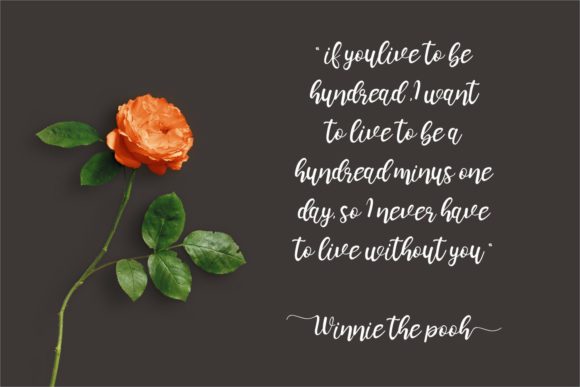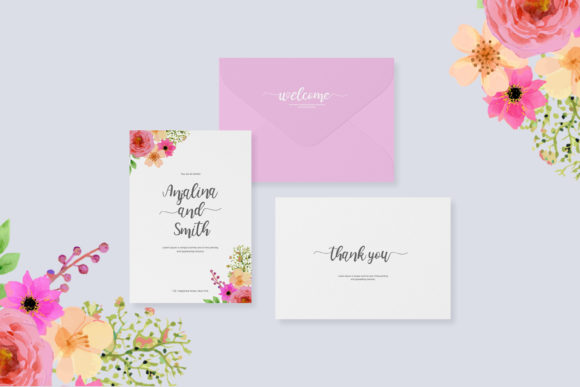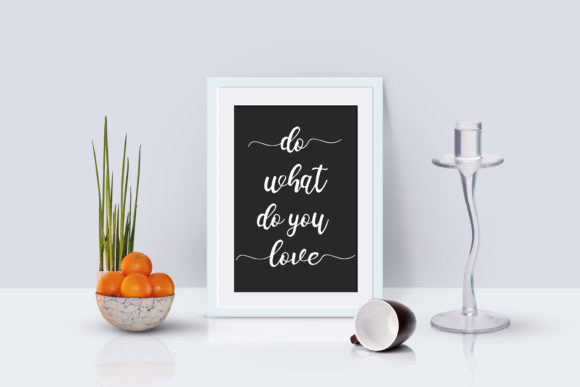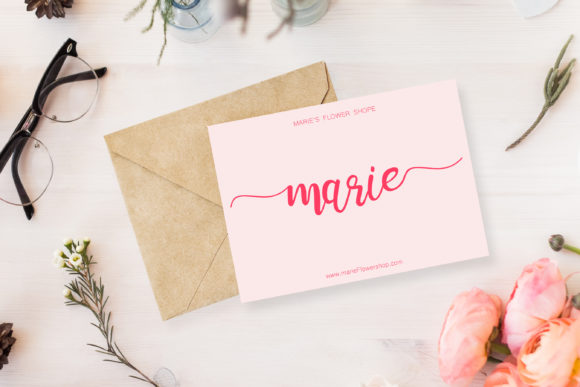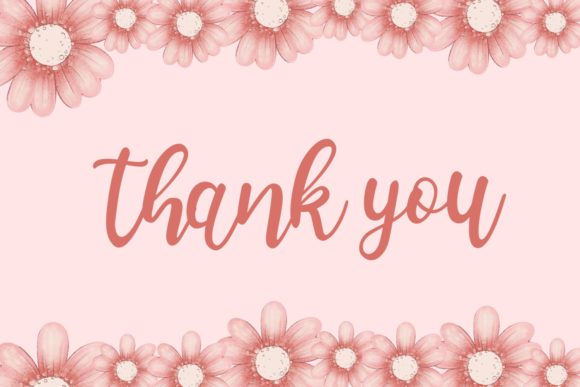
Hailyna Font: The Sweet and Soft Hand-Lettered Font for Your Creative Projects
Are you a designer or crafter looking for a font that can add a touch of sweetness and authenticity to your creative projects? Look no further than Hailyna Font! This beautiful, hand-lettered handwritten font is perfect for creating stunning wedding invitations, gorgeous stationery art, eye-catching social media posts, and cute greeting cards.
What is Hailyna Font?
Hailyna Font is a sweet, soft hand-lettered font that is designed to give your projects an authentic and personal feel. Its unique, handwritten style makes it perfect for a wide range of creative projects, from wedding invitations and stationery to social media posts and greeting cards.
Features of Hailyna Font
Hailyna Font has several features that make it a great choice for designers and crafters. Some of its key features include:
- Sweet and Soft Style: Hailyna Font has a sweet and soft style that is perfect for creating beautiful and delicate designs.
- Hand-Lettered: This font is hand-lettered, which gives it a unique and authentic feel.
- Easy to Read: Despite its delicate style, Hailyna Font is easy to read, making it perfect for use in a wide range of projects.
- Versatile: Hailyna Font can be used in a wide range of projects, from wedding invitations and stationery to social media posts and greeting cards.
Uses of Hailyna Font
Hailyna Font is a versatile font that can be used in a wide range of creative projects. Some of the most popular uses for this font include:
- Wedding Invitations: Hailyna Font is perfect for creating beautiful and elegant wedding invitations that will set the tone for your special day.
- Stationery Art: This font can be used to create gorgeous stationery art, including notecards, journals, and planners.
- Social Media Posts: Hailyna Font can be used to create eye-catching social media posts that will help you stand out from the crowd.
- Greeting Cards: This font is perfect for creating cute and personalized greeting cards for special occasions.
Why Choose Hailyna Font?
There are many reasons why you should choose Hailyna Font for your creative projects. Some of the benefits of using this font include:
- Unique and Authentic Style: Hailyna Font has a unique and authentic style that will help your projects stand out from the crowd.
- High-Quality: Hailyna Font is a high-quality font that is designed to produce beautiful and clear results.
Tips for Using Hailyna Font2>
Here are a few tips for using Hailyna Font in your creative projects:
- Use it with Other Fonts: Hailyna Font can be used with other fonts to create interesting and unique combinations.
- Experiment with Different Sizes: This font can be used in a range of sizes, from small and delicate to large and bold.
- Add Decorations: You can add decorations, such as flowers or borders, to give your designs a more personalized touch.
In conclusion, Hailyna Font is a beautiful and versatile font that is perfect for designers and crafters. Its sweet and soft style, hand-lettered design, and easy-to-read format make it a great choice for a wide range of creative projects. Whether you’re creating wedding invitations, stationery art, social media posts, or greeting cards, Hailyna Font is sure to help you produce stunning results.